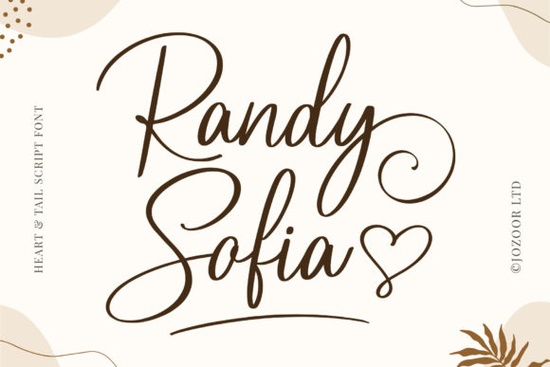
If you’ve been searching for a script font that feels personal, elegant, and just a little playful, Randy Sofia Font might be exactly what your next project needs. It’s the kind of typeface that doesn’t just sit on the page it moves. The letters sway gently above and below the baseline, giving each word a sense of rhythm and warmth. Whether you’re designing wedding invitations, branding a small bakery, or creating custom merch, this font brings a touch of handwritten charm without losing legibility.
Who is this font best for?
If you run a small business that leans into handmade, heartfelt, or romantic aesthetics, Randy Sofia fits like a glove. Think florists, stationery shops, candle makers, or boutique skincare brands. Print-on-demand sellers love it for mugs, tote bags, and journals with inspirational quotes. Crafters use it for vinyl decals, embroidery patterns, and scrapbooking. Even hobbyists making birthday cards or baby shower banners find it easy to work with and full of personality.
It pairs beautifully with clean sans-serifs for contrast, or you can let it shine solo as a headline font. Because of its flowing style, it’s not ideal for long paragraphs but for logos, packaging, social media graphics, or event signage, it adds just the right amount of sweetness without being cloying.
How does it compare to other script fonts?
Not all script fonts behave the same way. Some feel stiff, others overly ornate. Randy Sofia strikes a balance it’s graceful but not fussy, romantic but not childish. If you’ve liked fonts like Dream Wish for its airy whimsy or Child for its casual bounce, you’ll appreciate how Randy Sofia offers something in between: structure with soul.
Unlike Rainbow, which leans into bold color-ready lettering, or Lucky, which has a more modern brushstroke vibe, Randy Sofia keeps things classic. It’s the font you’d choose when you want elegance that still feels approachable like a handwritten note from someone who took their time.
What can you actually make with it?
- Wedding suites invitations, menus, place cards, thank-you notes
- Small business branding shop signs, product labels, social media banners
- Printables wall art, calendars, quote posters
- Craft projects iron-on transfers, wood signs, stitched monograms
- Digital products Etsy listings, Pinterest pins, Instagram story templates
One user even used it to design a line of “just because” greeting cards for her Etsy shop pairing Randy Sofia with minimalist line drawings. Another turned it into a logo for her home-based cake decorating business. The key is letting the font breathe. Give it space, pair it with simple elements, and let its natural flow do the talking.
Any tips for getting the most out of it?
Yes and they’re simple:
- Use OpenType features. If your software supports it (most do), toggle on stylistic alternates or ligatures to see hidden character variations.
- Avoid tiny sizes. This font shines at 24pt and up. Below that, some of the finer strokes may get lost.
- Pair wisely. Try it with neutral fonts like Montserrat, Lato, or even a classic serif like Georgia for body text.
- Test print or mockup first. Especially if you’re using it on physical products check how the thin strokes translate on different materials.
You can also browse similar styles in the Randy Sofia collection if you want to mix weights or find matching display versions.
Is it worth buying?
If you’re tired of generic scripts that all look the same, yes. Randy Sofia has enough character to stand out without screaming for attention. It’s versatile enough for commercial use, well-encoded for hassle-free editing, and priced affordably especially if you grab it during one of Creative Fabrica’s frequent bundle deals.
Designers who care about subtle details the curve of a tail, the spacing between letters, the way a capital “Q” loops will notice the craftsmanship here. It’s not a font you install and forget. It’s one you come back to, again and again, because it just works.